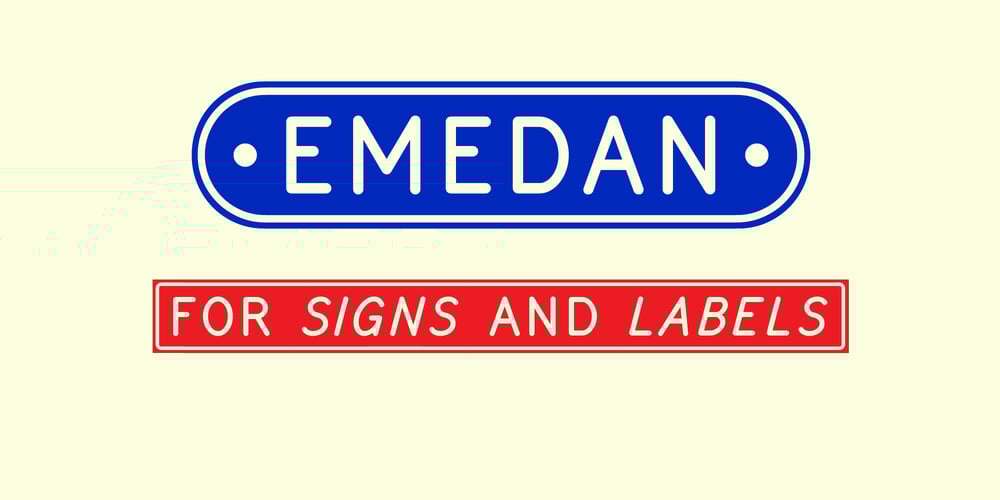
Emedan Font Family was designed by Lars Törnqvist and published by Cercurius. Emedan contains 2 styles and family package options. An all-capitals reversed sans-serif font, designed for easy creation of signs, labels and banners. Various endpieces are included. Upright and italic can be combined.